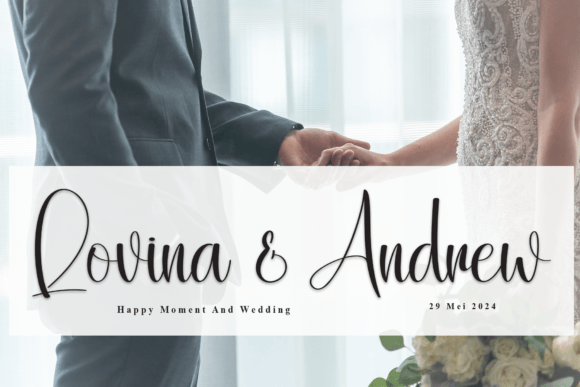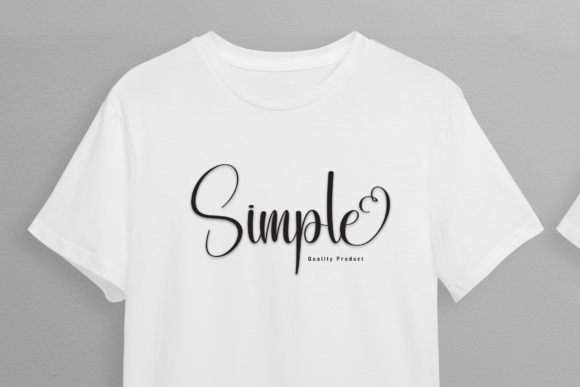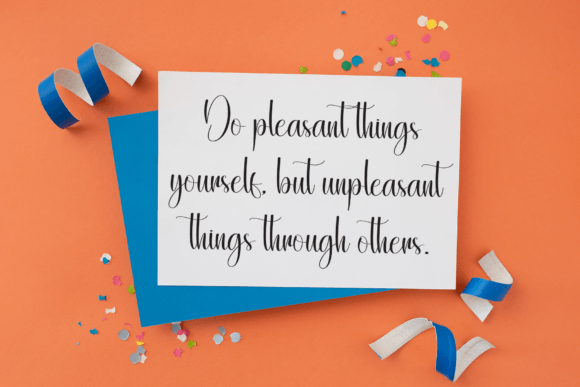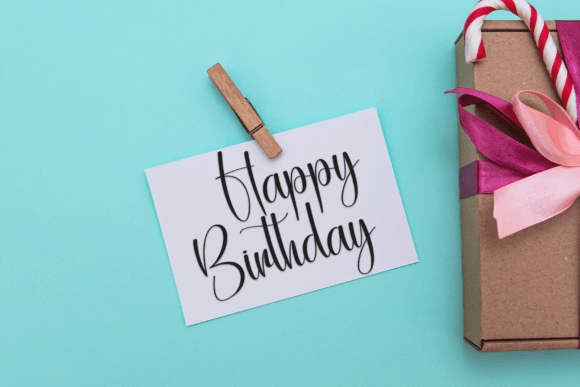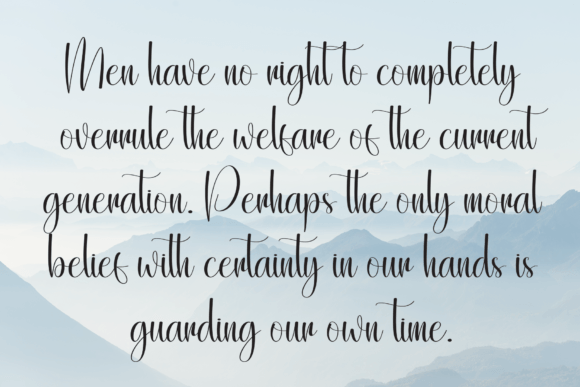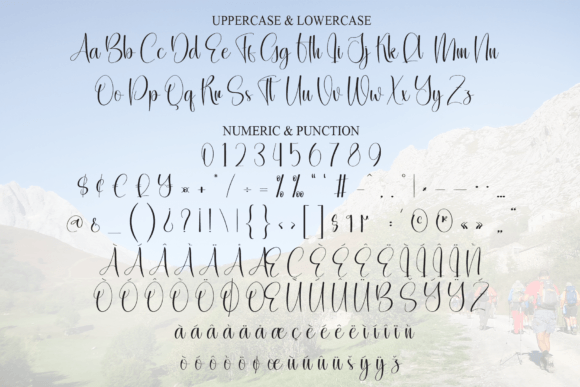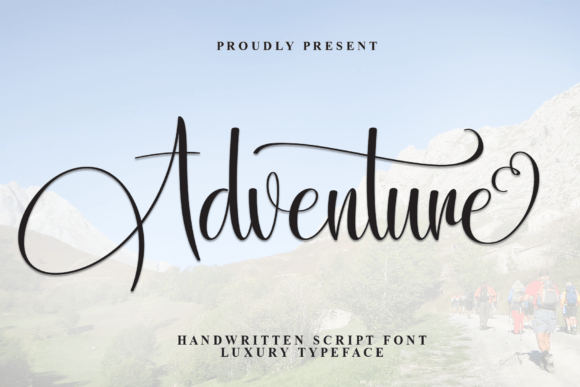
Introducing Adventure Font: Elevate Your Designs with Effortless Elegance
Are you on the hunt for a font that embodies the perfect blend of modern charm and casual sophistication? Look no further than Adventure Font, a stunning handwritten script that is sure to elevate your creative projects to new heights. With its fluid strokes, cohesive appearance, and friendly demeanor, Adventure Font is the ideal choice for designers and crafters seeking to add a personal touch to their work.
The Essence of Adventure Font
Adventure Font is a modern and charming handwritten font that captures the essence of casual script with remarkable precision. Its fluid, cohesive strokes exude a sense of effortless elegance, making it perfect for a wide range of applications, from personal blogs and heartfelt invitations to boutique branding and beyond. Whether you’re a seasoned designer or a crafty entrepreneur, Adventure Font is sure to become your go-to choice for adding a touch of sophistication and whimsy to your creations.
Key Features of Adventure Font
- Fluid and Cohesive Strokes: Adventure Font boasts smooth, connected strokes that create a sense of fluidity and movement, making it perfect for designs that require a touch of dynamism.
- Friendly and Approachable: The font’s friendly appearance and charming personality make it an excellent choice for designs that aim to connect with the audience on a personal level.
- Modern and Charming: Adventure Font’s modern aesthetic and charming script make it an excellent choice for designers and crafters seeking to create unique and eye-catching designs.
- Versatile: Whether you’re working on a personal blog, invitation, or boutique branding project, Adventure Font is versatile enough to adapt to any creative endeavor.
Adventure Font is a dream come true for designers and crafters seeking to add a personal touch to their work. Its unique blend of modern sophistication and casual charm makes it an excellent choice for a wide range of projects, including:
- Personal Blogs: Add a touch of elegance and whimsy to your blog with Adventure Font, making it perfect for lifestyle, fashion, or travel bloggers.
- Heartfelt Invitations: Create beautiful, one-of-a-kind invitations for special occasions, such as weddings, baby showers, or birthday parties.
- Boutique Branding: Elevate your brand with Adventure Font’s unique and charming script, perfect for boutique businesses, such as fashion, beauty, or home decor.
Tips for Using Adventure Font
In conclusion, Adventure Font is a stunning handwritten script that is sure to capture the hearts of designers and crafters alike. Its fluid strokes, cohesive appearance, and friendly demeanor make it the perfect choice for adding a personal touch to any creative project. Whether you’re working on a personal blog, invitation, or boutique branding project, Adventure Font is the ideal choice for elevating your designs with effortless elegance.